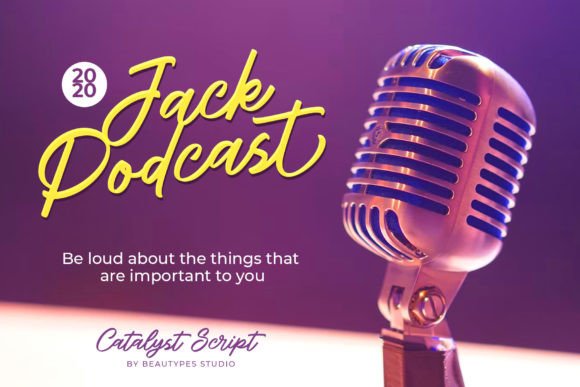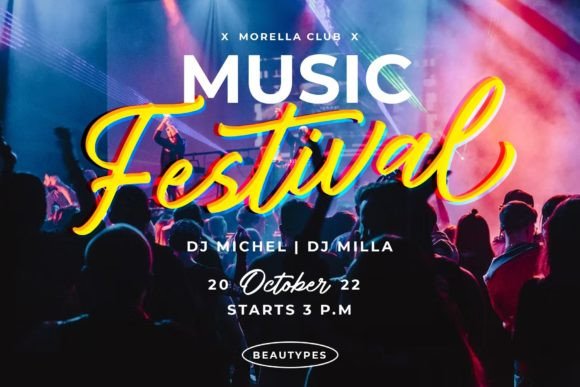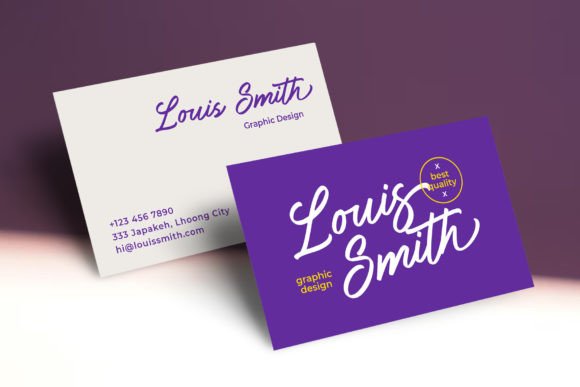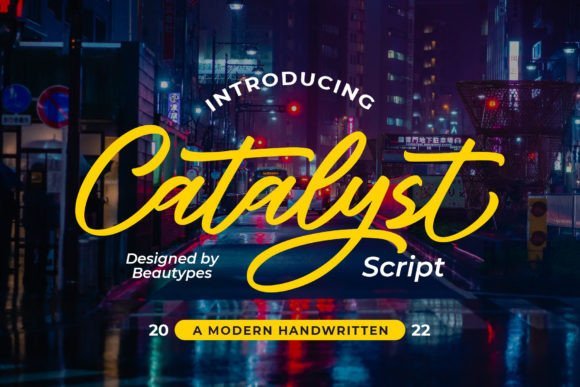
Introduction to Catalyst Script Font
Catalyst Script is a fresh and unique font.
It has an amazing handwritten look and is perfect for logos, stationery, posters, apparel, branding, advertisements, product packaging, product designs, labels, wedding invitations, and much more This font is PUA encoded which means that you can access all the glyphs and swashes with ease.
Key Features of Catalyst Script Font
Why Choose Catalyst Script Font?
Catalyst Script Font offers exceptional quality and versatility, making it a valuable addition to your design toolkit. Whether you’re creating for personal projects or commercial use, Catalyst Script Font delivers professional results.